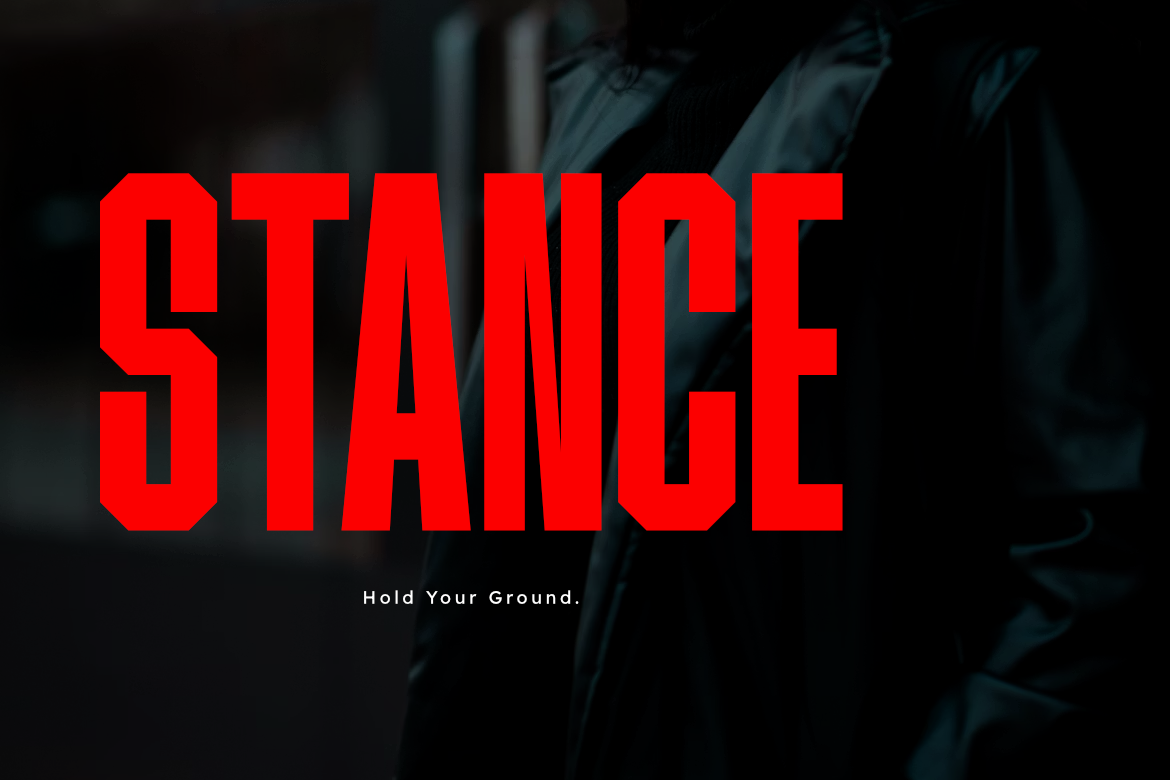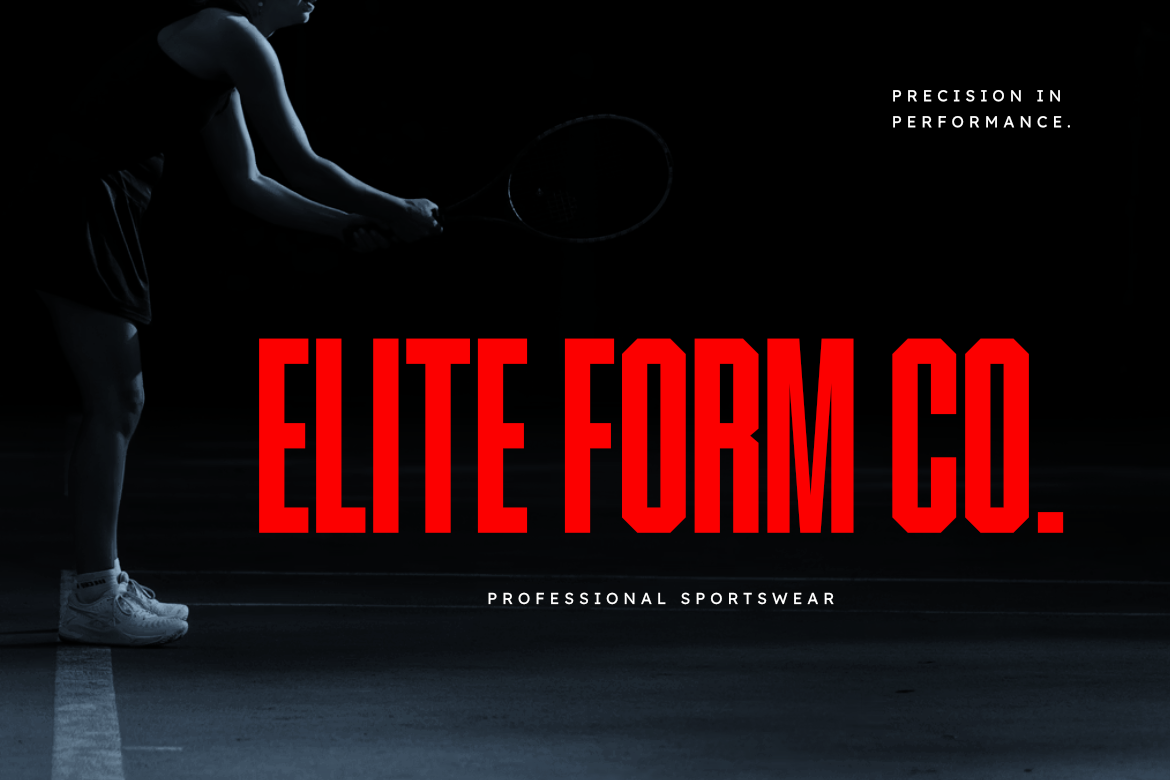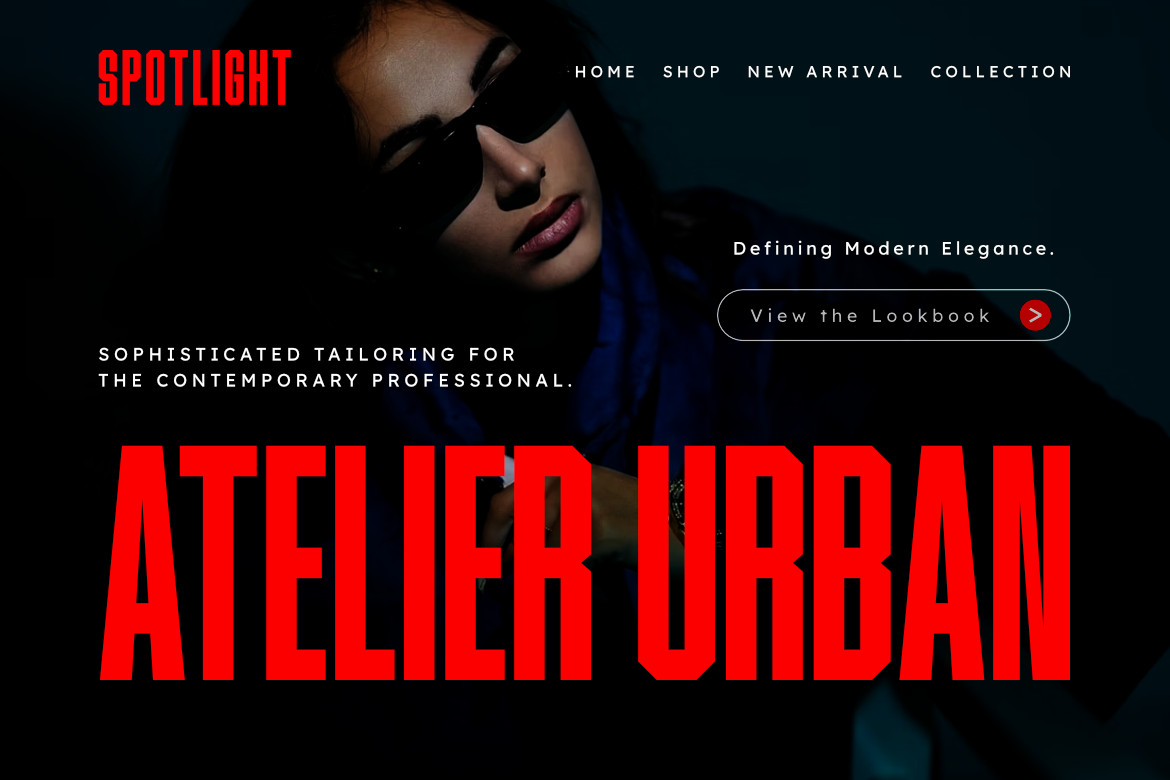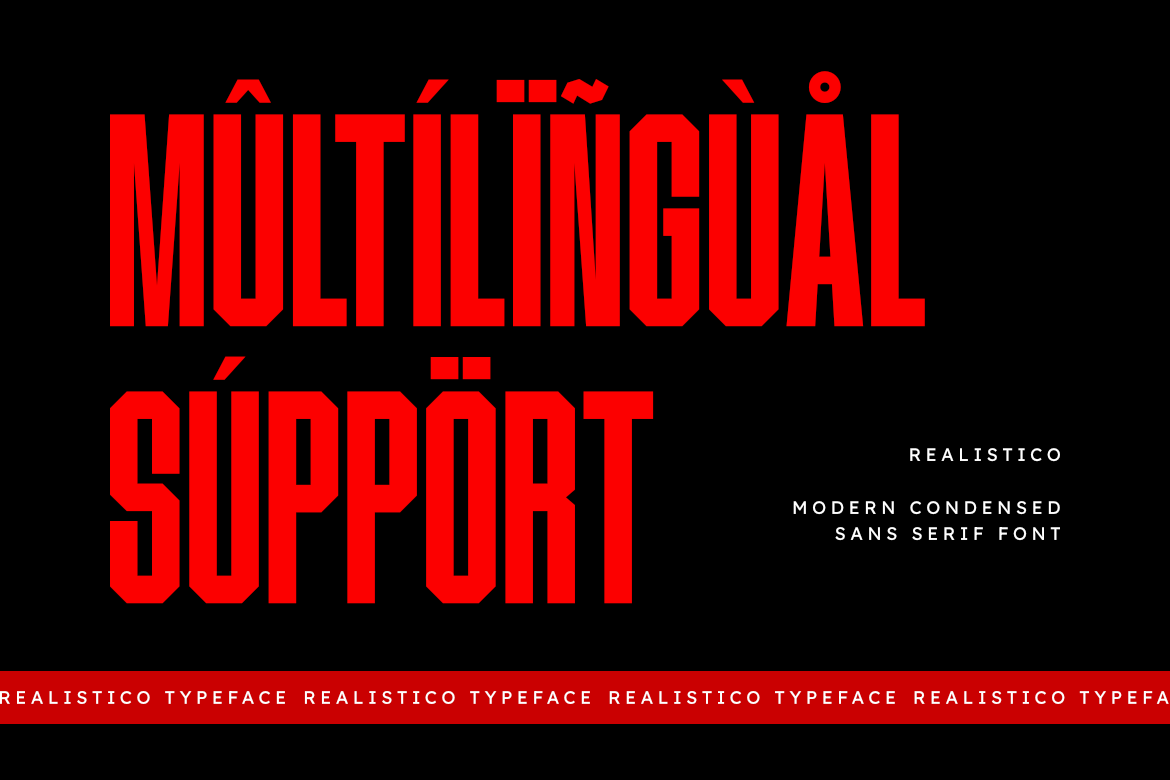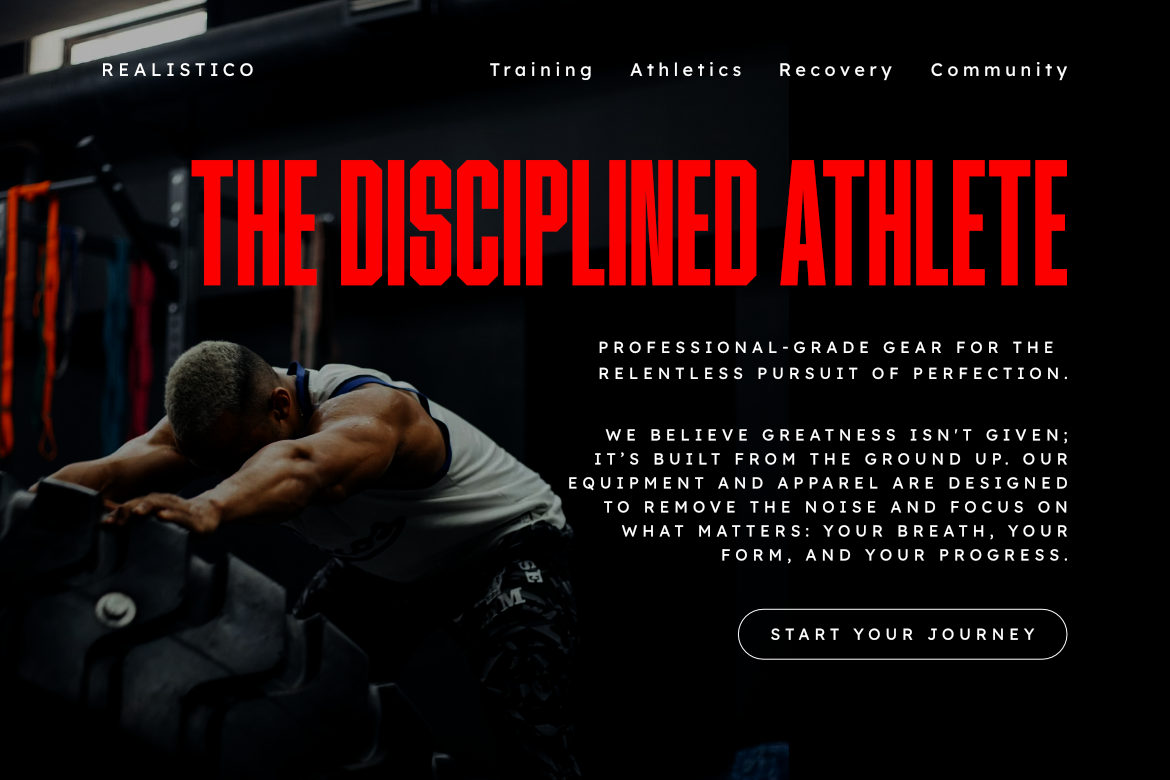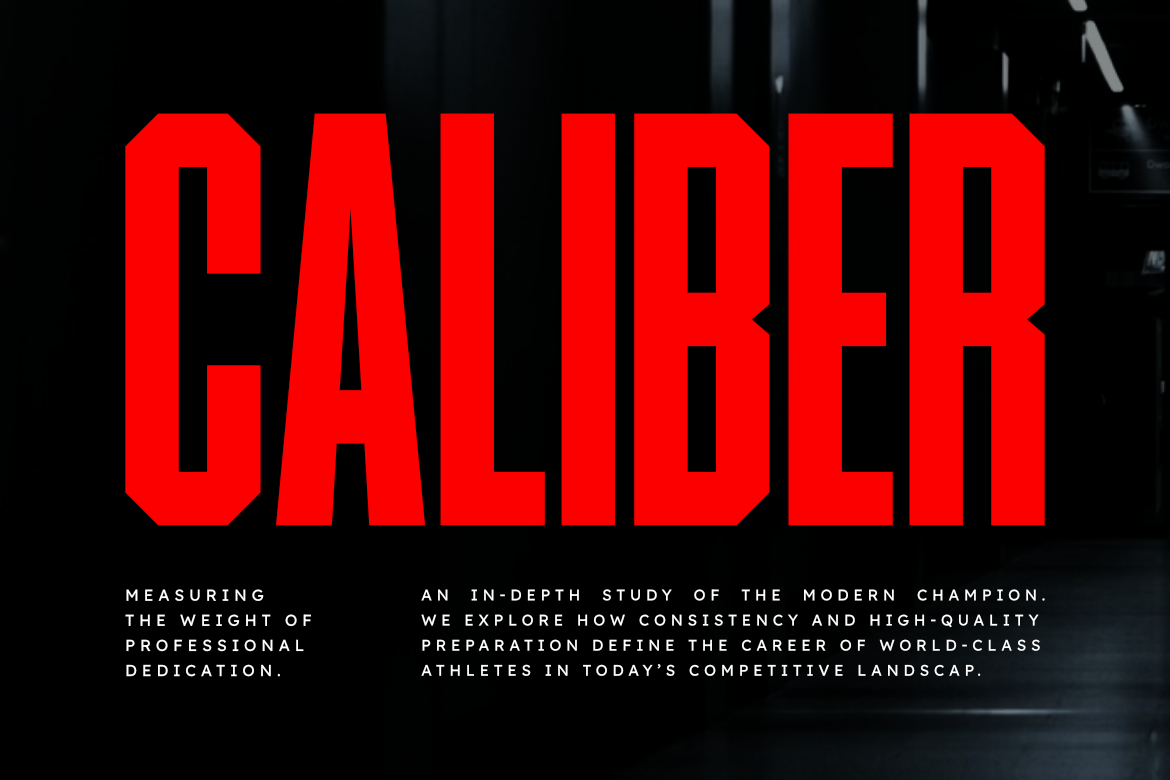
Realistico
Realistico is a sophisticated and powerful modern condensed sans serif font, thoughtfully designed to capture the essence of high-impact verticality and contemporary storytelling. With its tall structure, ultra-compressed width, and precise geometric angles, Realistico offers a professional aesthetic that brings a touch of commanding presence to any creative project.
This font is the ideal choice for designers looking to add a professional yet high-impact touch to their work. Whether you are crafting a striking athletic brand identity, a sleek e-sports logo, or bold cinematic layouts, Realistico provides a seamless blend of modern edge and competitive power.
- Modern Condensed Design: Optimized for a bold, space-efficient, and professional look.
- Clean Angular Structure: Meticulously crafted for superior visibility and a high-end feel.
- Commanding Presence: Perfect for headlines, merchandise, and large-scale digital displays.
- Professional Aesthetic: High-end finish for modern sports, tech, automotive, and industrial branding.
Best Used For: Sports branding, e-sports identities, cinematic movie posters, high-impact web headers, urban streetwear promotional layouts, apparel design, and modern corporate packaging.